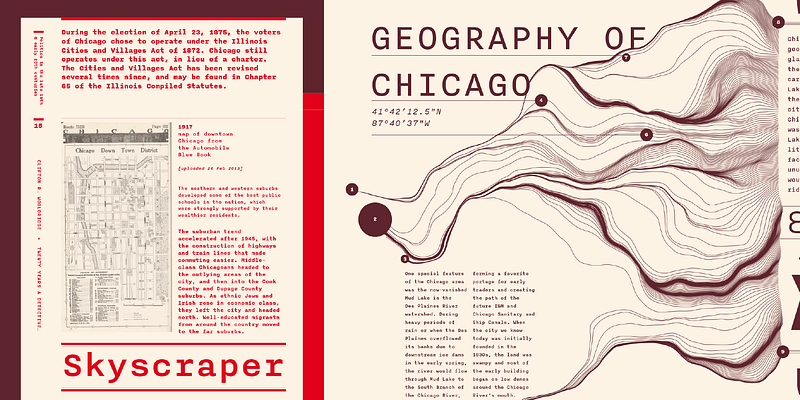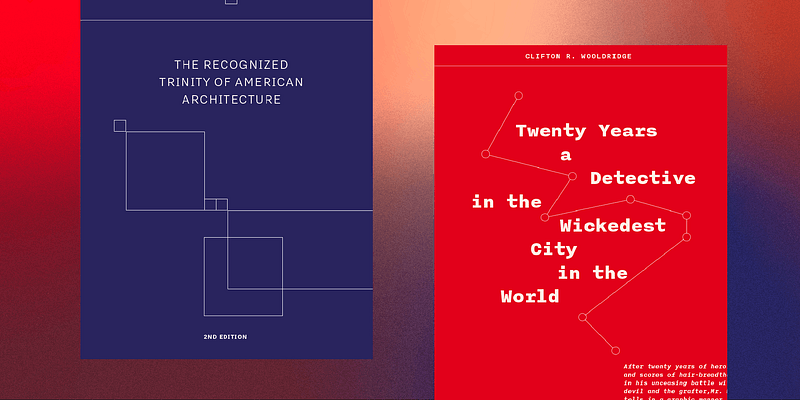
The monospaced Nitti forms part of Bold Monday’s extended Nitti suite, inspired by the earliest known sans serifs—the idiosyncratic English grots of the nineteenth century. Nitti came to worldwide recognition when Information Architects (iA) tapped it for its popular writing app, iA Writer. The family’s extensive character set covers Latin, Greek, Cyrillic, and Hebrew. Combine Nitti with the proportional Nitti Grotesk for a wide range of professional applications, like annual reports, that unite running text with tabular matter. Bold Monday, 2007–2016.